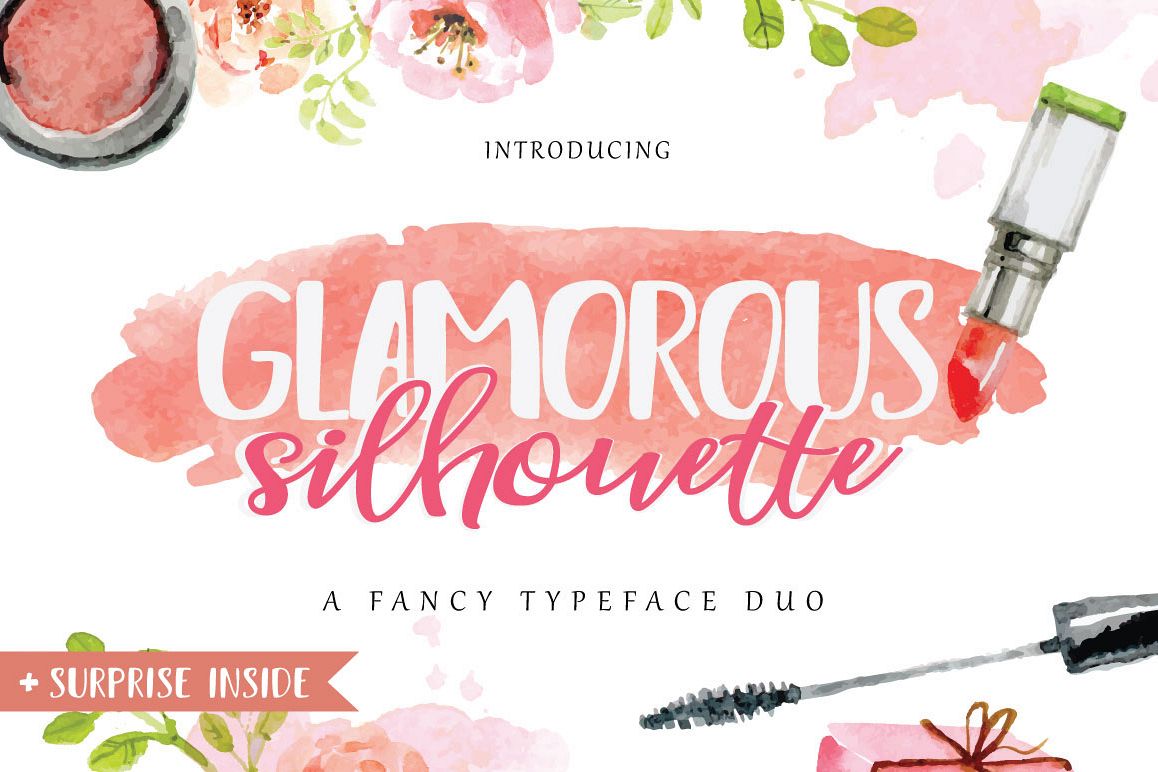
Glamorous Silhouette Font
Glamorous
Silhouette
is
a modern script
calligraphy duo typeface designed with heart
is guaranteed to give you in creating beautiful hand-made typography within a
second. ;) Use Glamorous
Silhouette
to help you create custom hand-lettering with the look of perfect hand
lettering and try also combining within it 4-style for perfect design.
Handwritten marker script plus bonus Luxurious Line Typeface (one of our best seller
font)
which allow you to create different feels for different projects. Ligatures
also available for some characters to create more natural look. Try switching
between every style characters
as well as with bonus font
to get the best layout for your text.
Glamorous Silhouette script is perfect for
logos, websites, invitations, greeting cards, magazines, business cards,
packaging and many more! Be a perfect professional in a minute and start
creating modern designs.